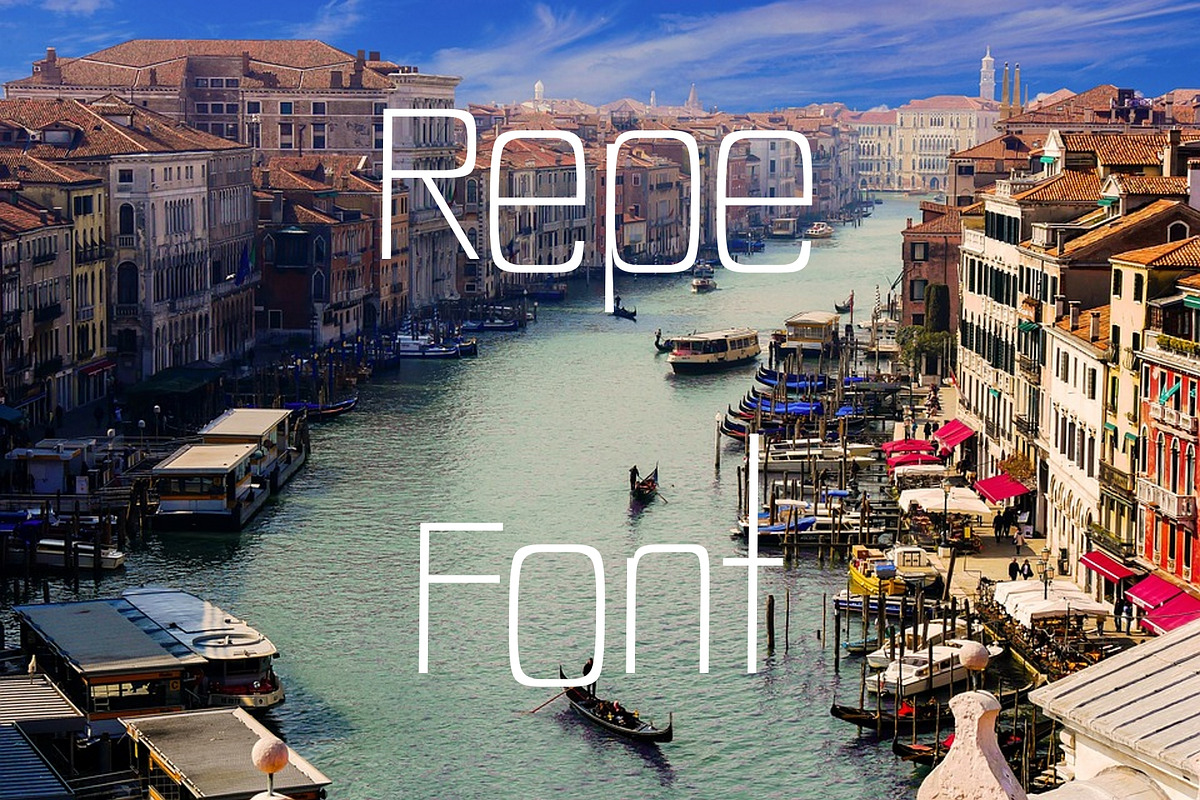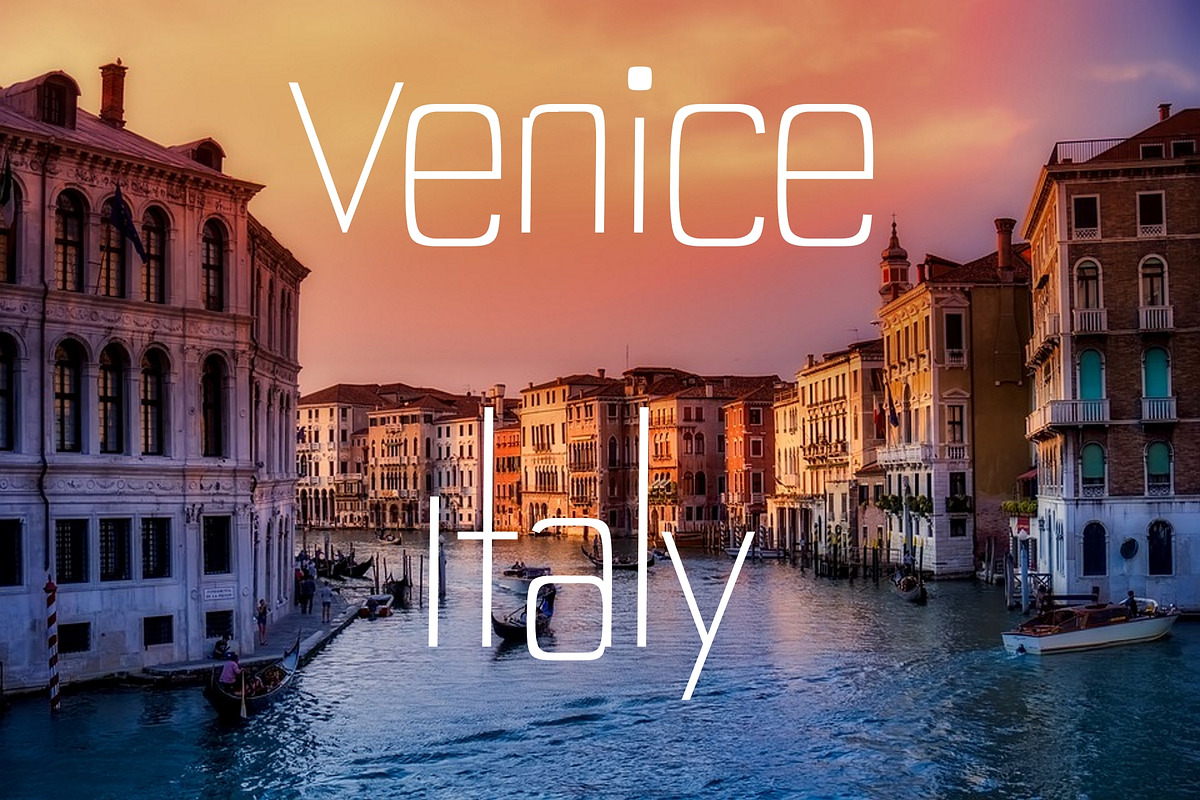
Repe Font
WARNING: SOME LETTERS ARE SUPPOSED TO CONNECT WHEN BELOW ANOTHER SENTENCE FOR EFFECT. IT IS NOT A GLITCH!
Why Repe Font is worth a look
Repe Font by Ultimate Font Store fits naturally into Branding, posters, packaging, typography.